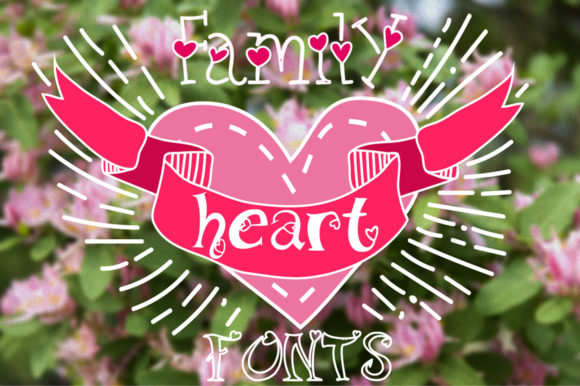
**Introducing Family Heart Font: The Ultimate Choice for Stunning Vinyl Lettering**
Prepare to be captivated by Family Heart Font, the display font that will ignite your creativity and make your designs soar. Crafted with passion by the talented Ana Babi, this exceptional font is a fusion of modern aesthetics and playful charm. With Family Heart at your fingertips, you hold the key to unlocking exceptional vinyl lettering that will turn heads and leave a lasting impression.
**Unleash Your Creative Genius:**
Family Heart Font is more than just a font; it's a gateway to a world of boundless possibilities. Its distinctive design adds a touch of magic to any project, empowering you to create eye-catching logos, captivating posters, and standout social media graphics that demand attention.
**Elevate Your Vinyl Creations:**
Let your imagination run wild as you use Family Heart Font to adorn your vinyl projects. Its unique curves and quirky shapes will effortlessly elevate your lettering, transforming ordinary designs into extraordinary masterpieces. From personalized mugs to stunning wall art, your creations will radiate with a captivating charm that will make hearts flutter.
**Make a Statement with Every Word:**
With Family Heart Font, every word you write becomes a statement. Its bold presence commands attention, ensuring your message will be heard loud and clear. Whether you're creating custom decals for your business or designing heartfelt wall décor for your home, this font will amplify your words, making them impossible to ignore.
**Spark Joy with Every Design:**
Family Heart Font is not merely a tool; it's a catalyst for joy. Its playful spirit will ignite your creativity, inspiring you to craft designs that bring smiles to faces and spread happiness wherever they go. Let your imagination take flight and create vinyl masterpieces that will brighten up the world, one letter at a time.
As you immerse yourself in the world of Family Heart Font, you'll discover the true meaning of creative freedom. Its versatility and boundless charm will empower you to push the boundaries of your imagination, creating vinyl lettering that captivates, inspires, and leaves a lasting legacy. Embrace the power of Family Heart Font today and unlock the potential of your creative vision.